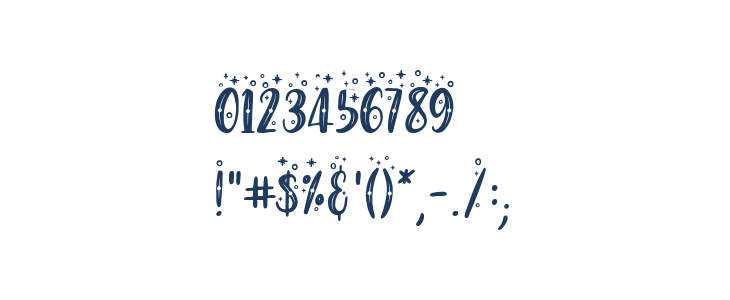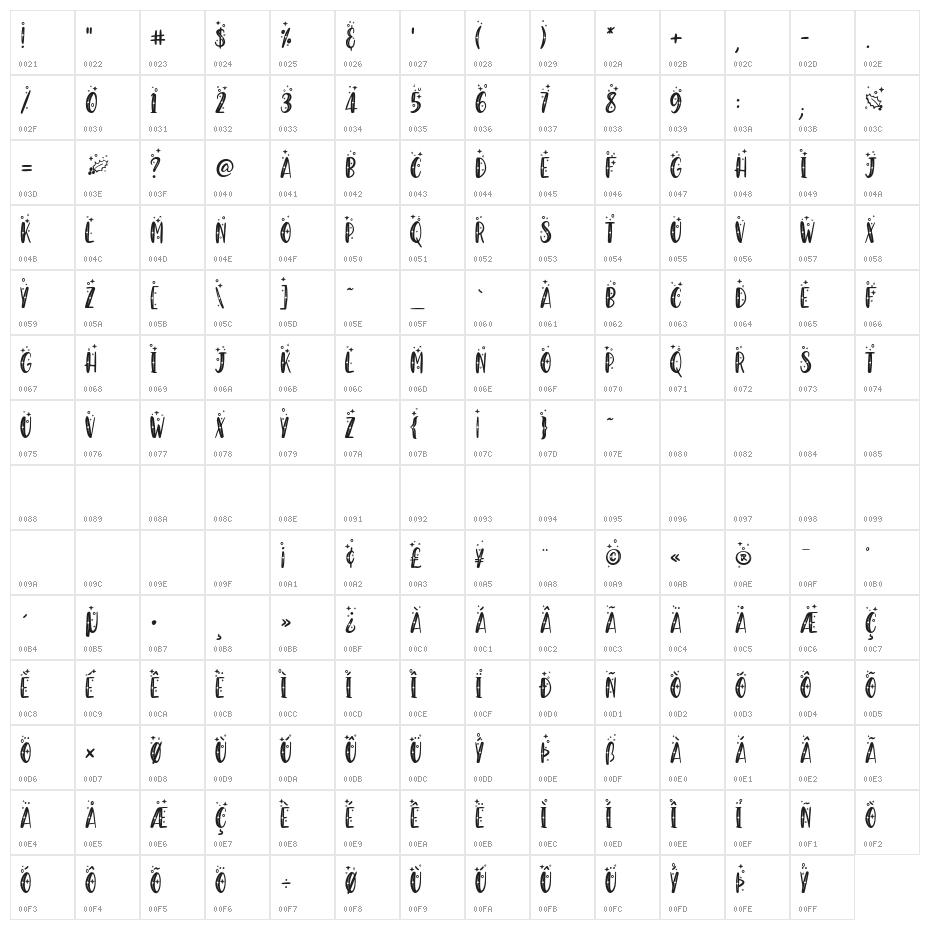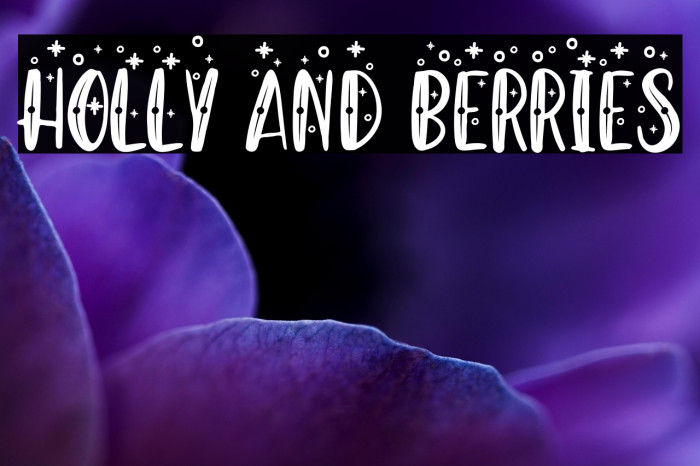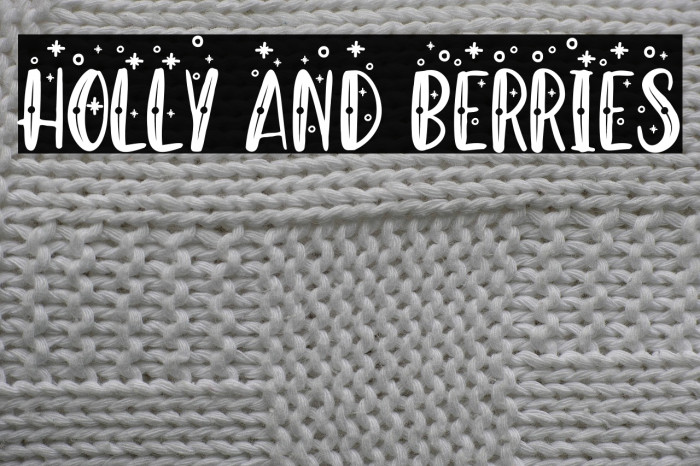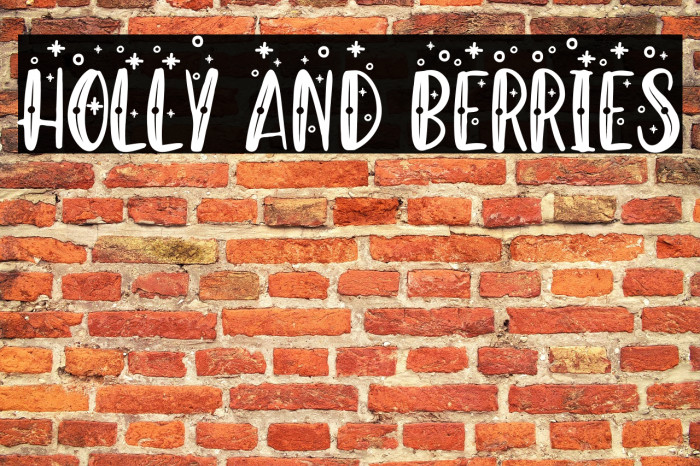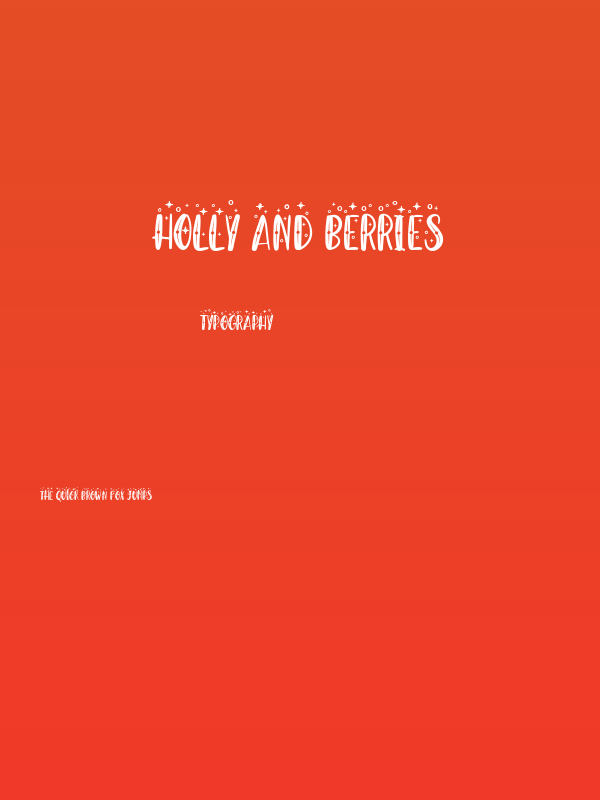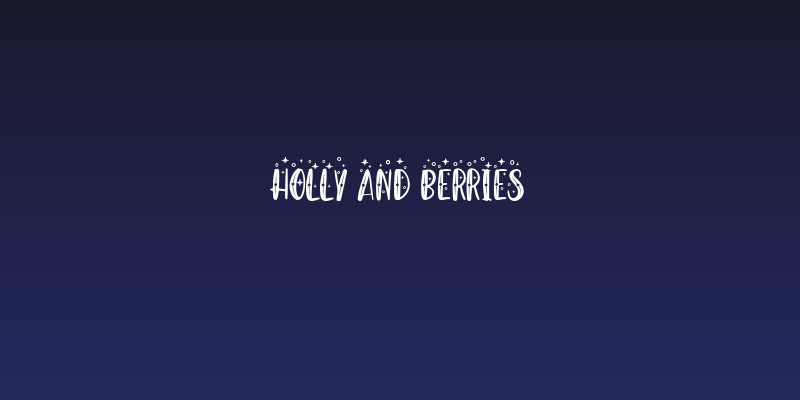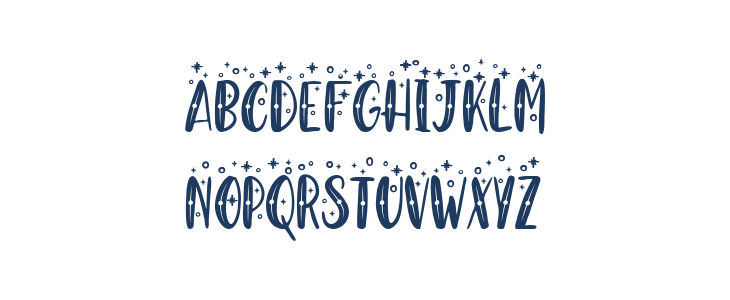
Holly And Berries Font
Holly And Berries Description
This playful and festive font features bold, rounded characters with a whimsical touch. Each letter is adorned with decorative elements reminiscent of holiday cheer, such as stars and dots, creating a lively and joyful appearance. The characters are tall and slightly narrow, with a consistent stroke width that adds to the boldness of the design. The font maintains a sense of fun and celebration, making it perfect for seasonal projects. Its unique style captures the essence of holiday festivities, making it stand out in any design.
| Overall Style | Festive |
| Proposed Projects | Ideal for holiday cards, festive banners, party invitations, and seasonal advertisements. |